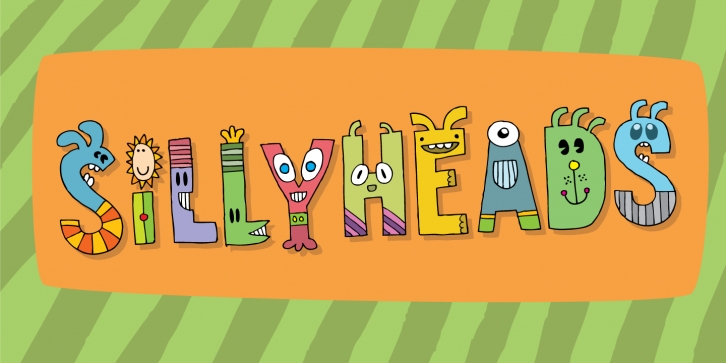
Need something VERY silly for your headlines and still keep the legibility?!
Then Sillyheads could be your no. 1 choice!
Sillyheads has got that funny, weird, cute, crazy look!